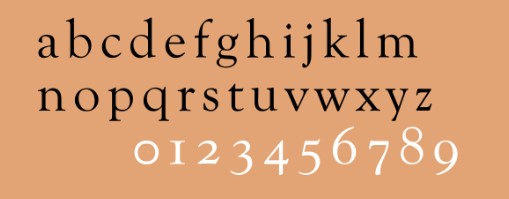
We are presenting the classic yet distinctive Goudy Old Style Font. This font has a unique appearance that pairs well with the beautiful people font. Frederic W. Goudy designed it under the American font foundry license.
This is a display typeface that is perfectly fine for high-resolution displays, screens and for mobile screens also. It is a user-friendly fonts that has great readability. The font did great works in graphic project.
View Of Goudy Old Style Font
Here we provide an image that includes the characters and letters of this beautiful look that has great looks like candara font, you can perceive it by viewing on the image and get an idea how delightful it is.
The font can be useful for designing small and big projects. It is best for writing the book content or posts content.
This unque and elegant font that which has a popular texture so that can also be used in pairing also. That’s why each designer treated it as a really perfect font in all appreciate.
- Museum exhibitions
- Presentations
- Public transportation navigation
- Newsletters
- Magazines
- GIFs
| Designer | Frederic W. Goudy |